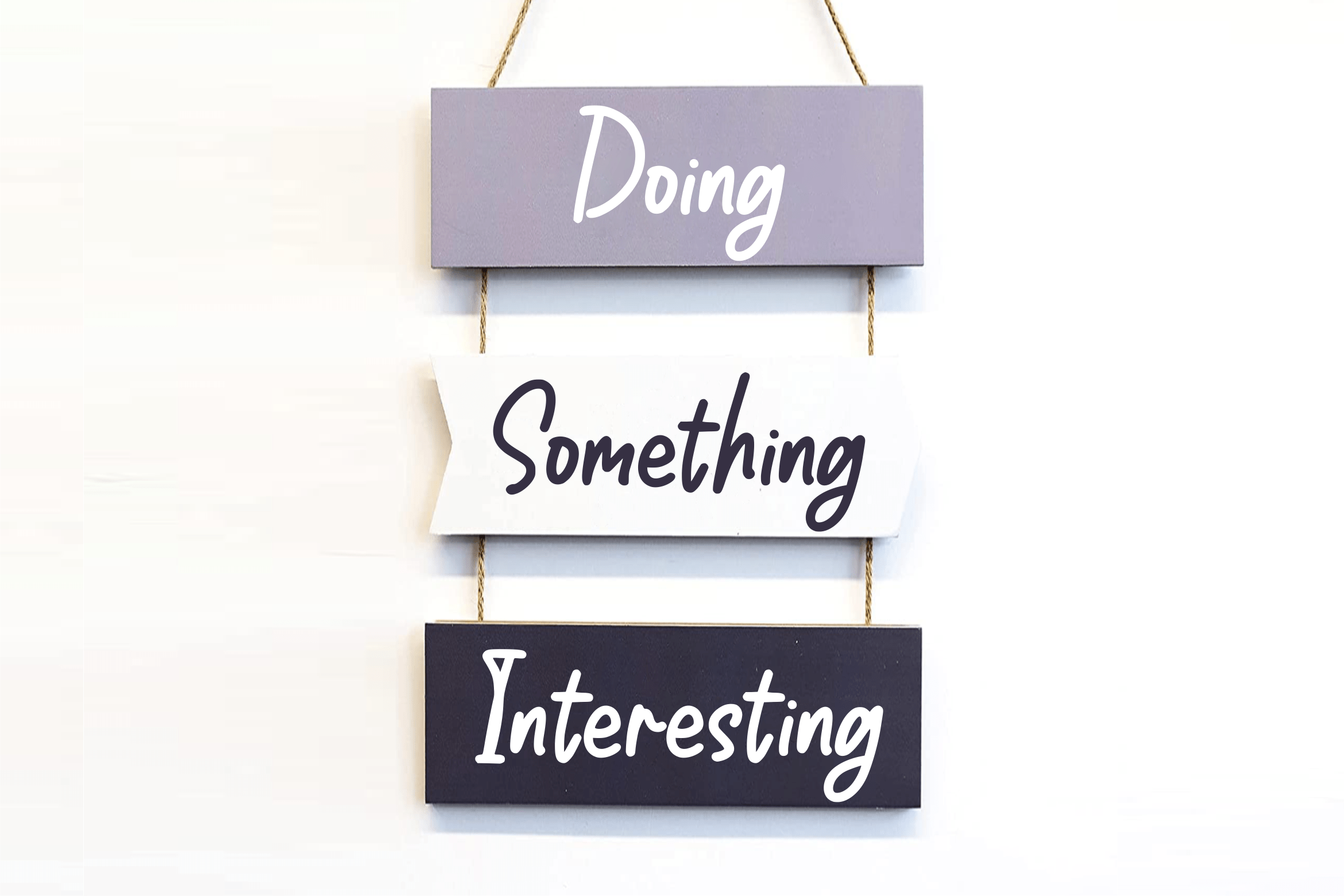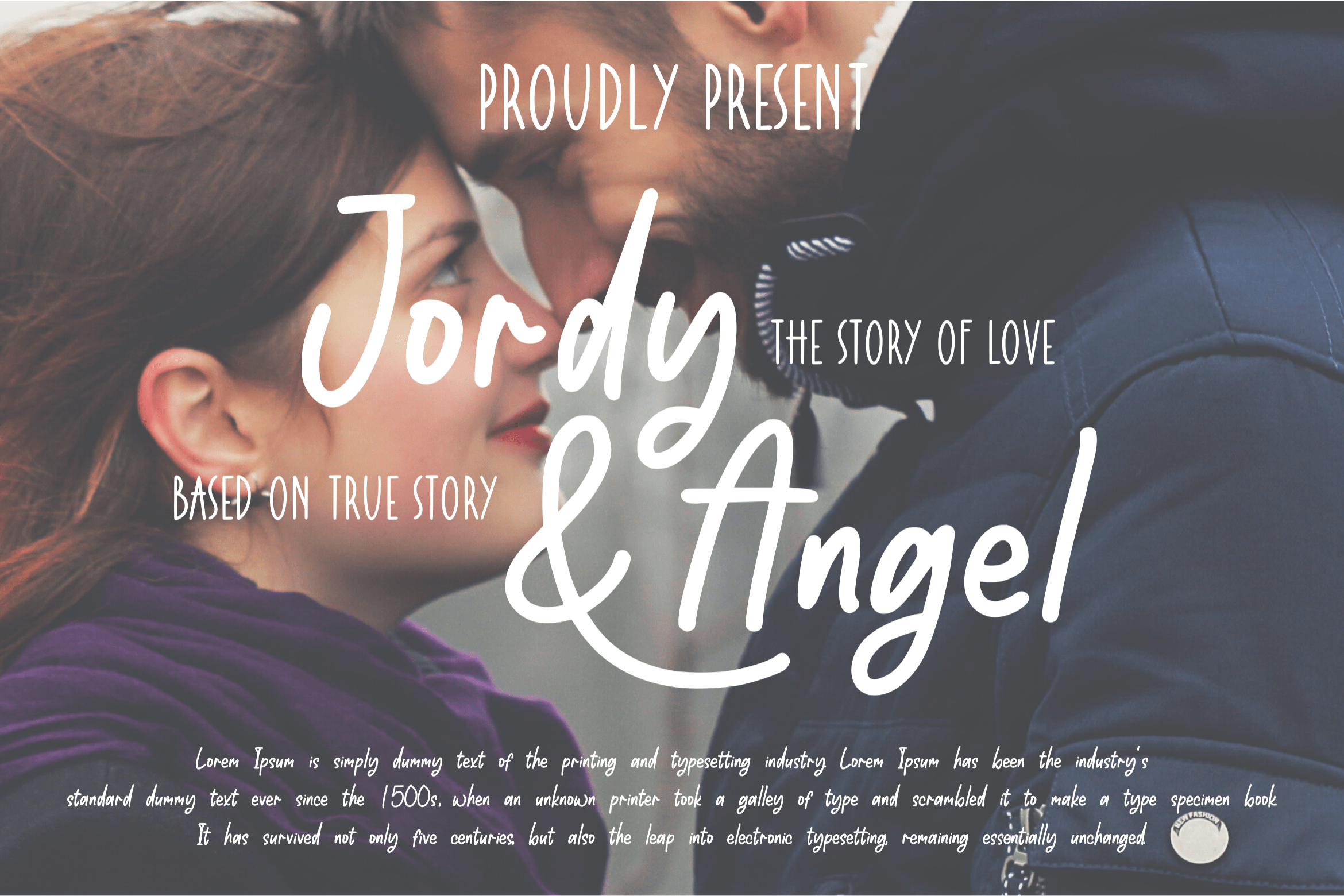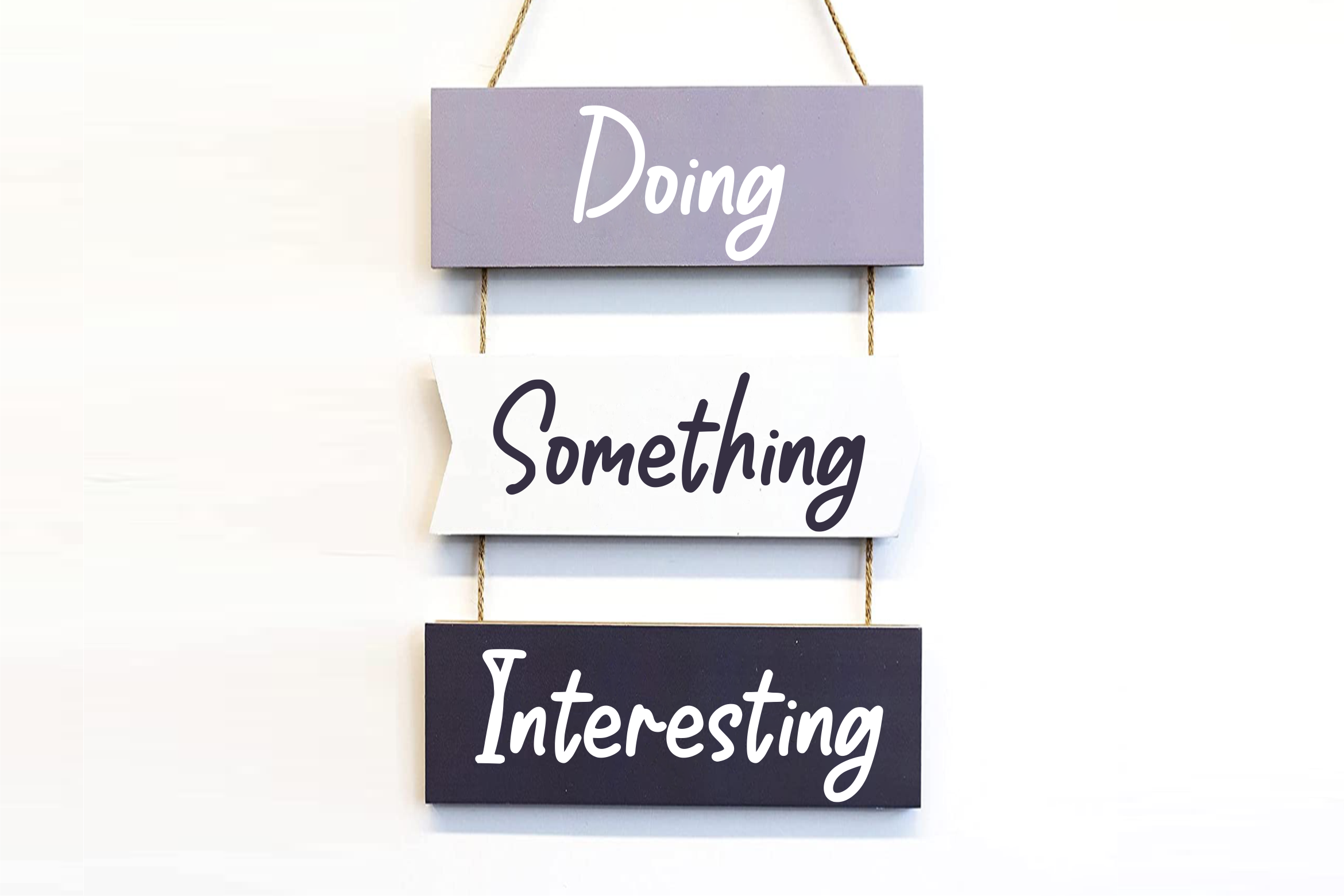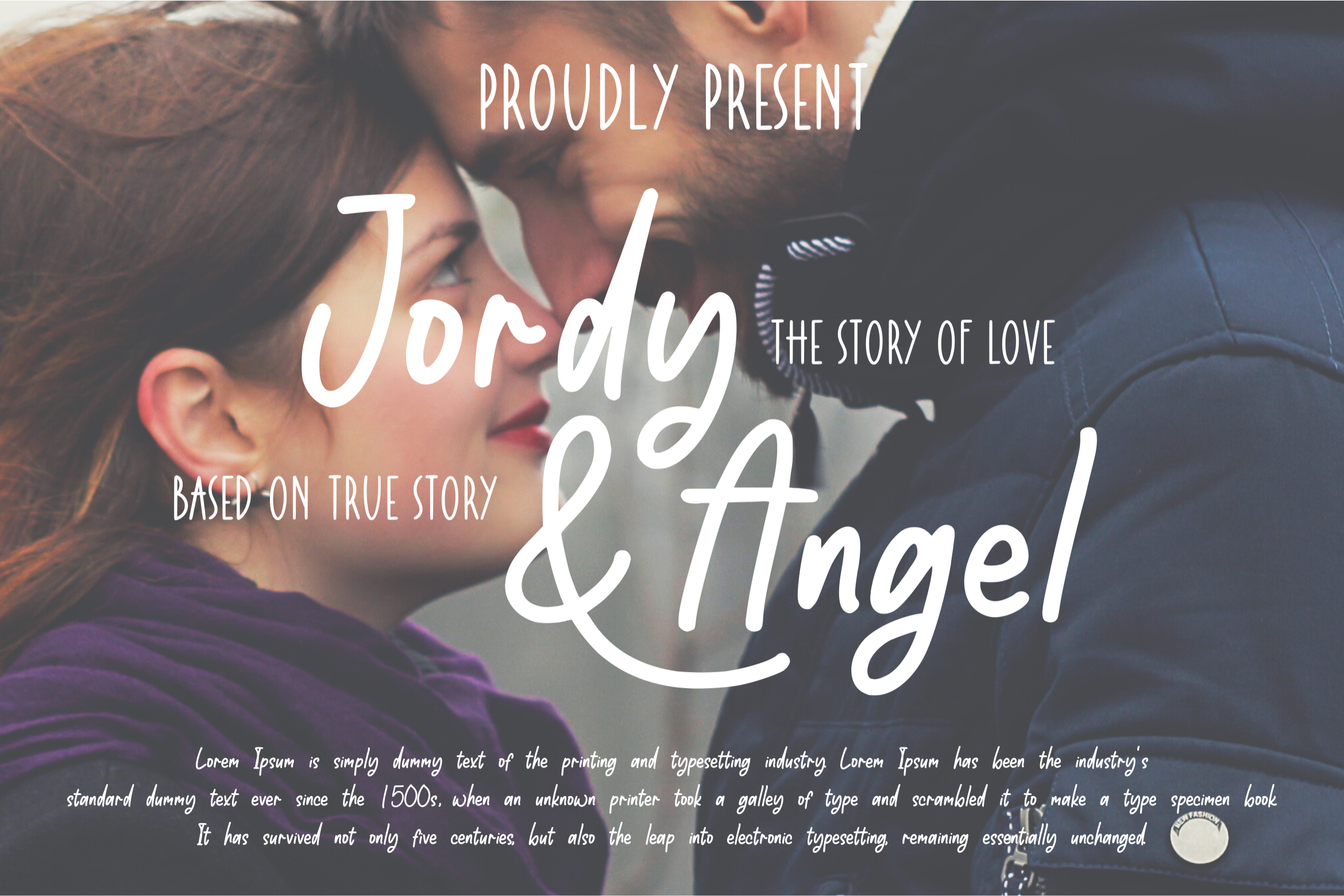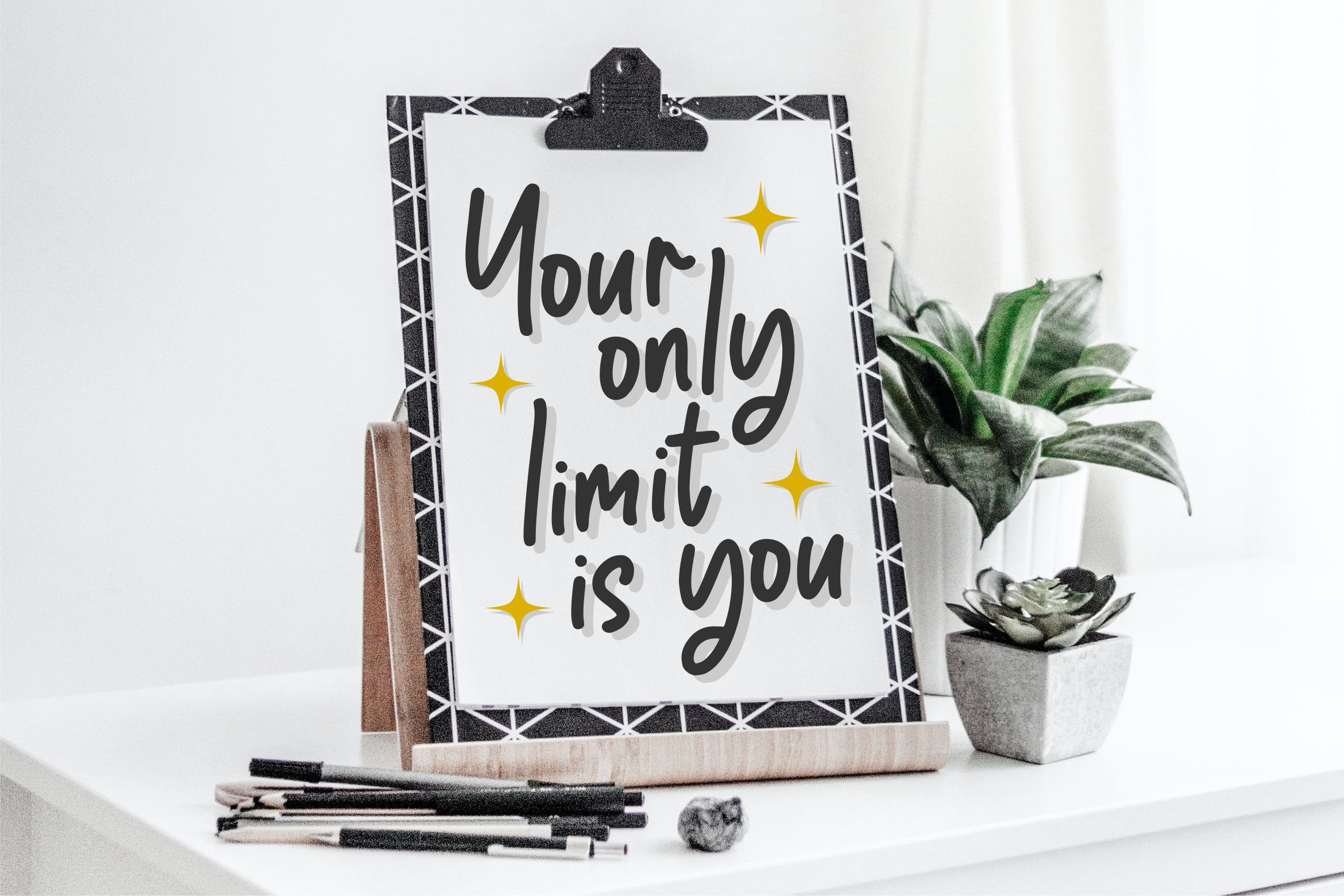
Squashwill Handwritten Font
This is a relaxed, paint brushed handwritten font. It is perfect for product packaging, branding project, magazine, social media, wedding, or just used to express words above the background.